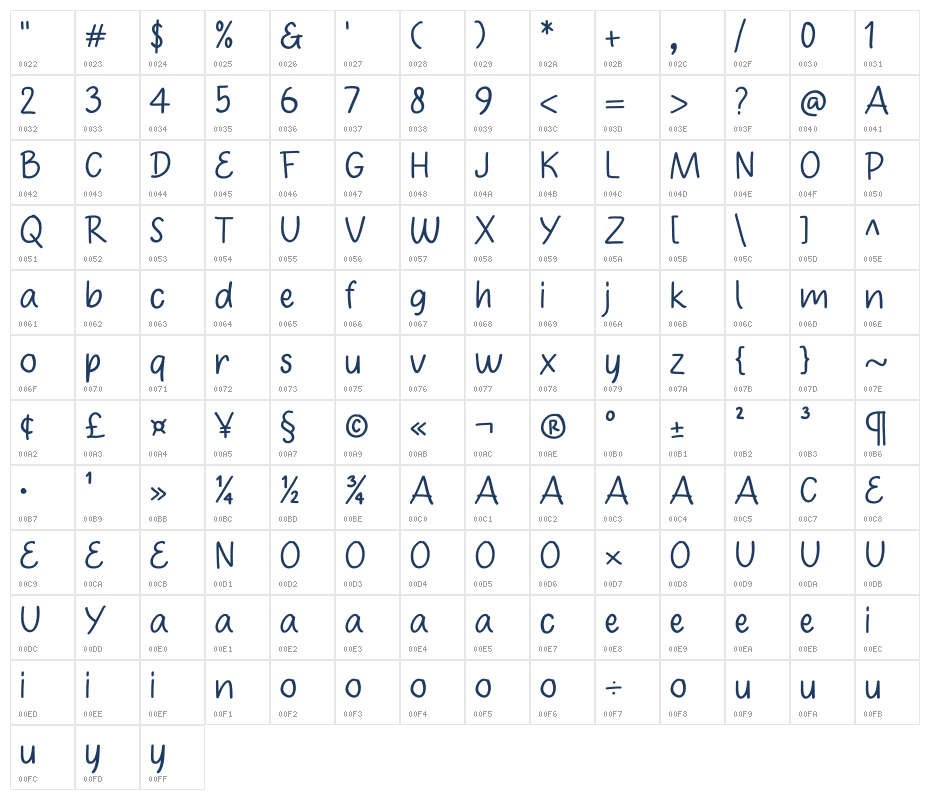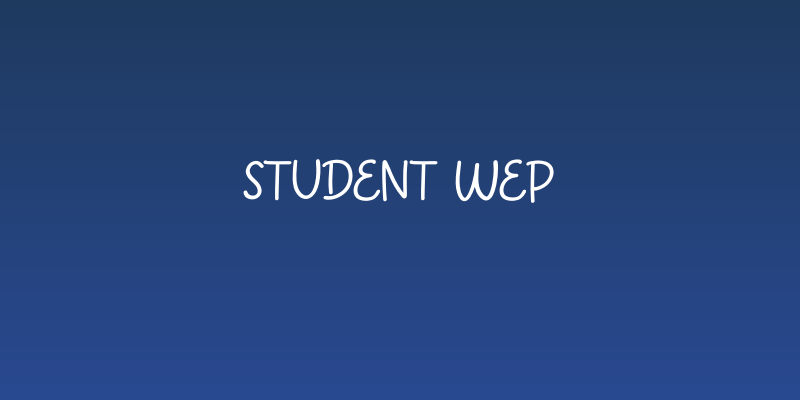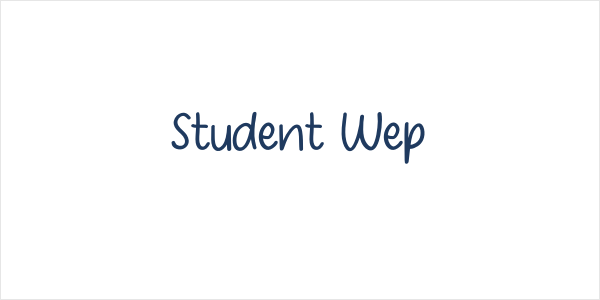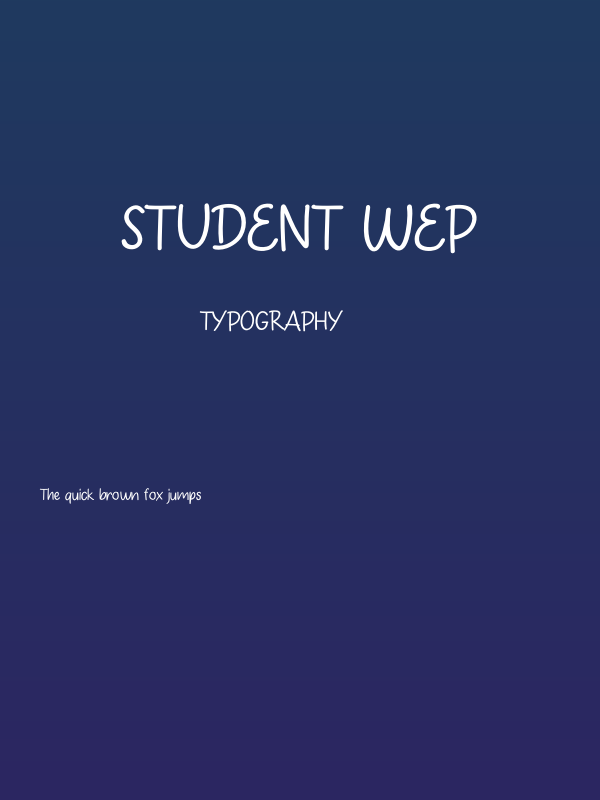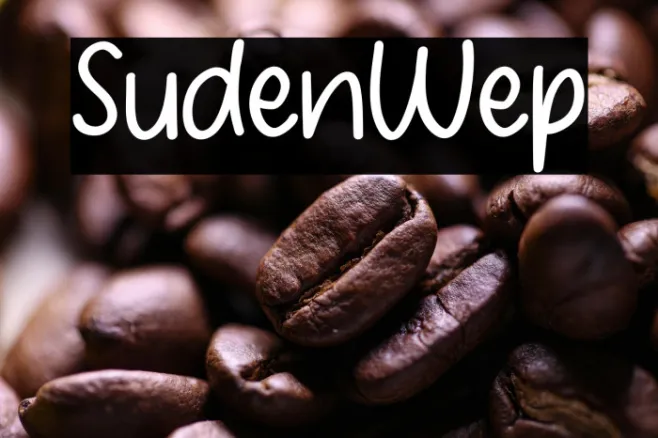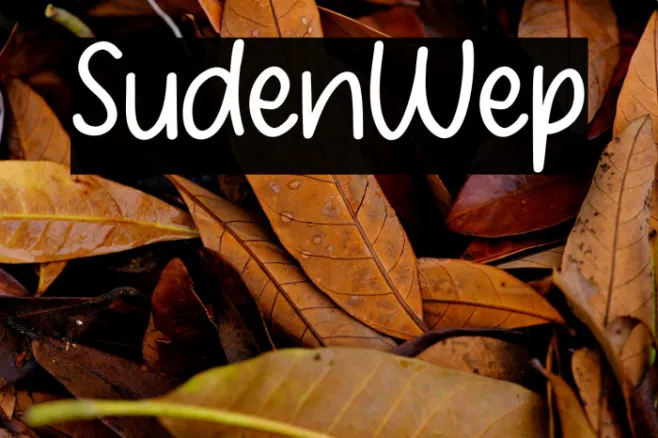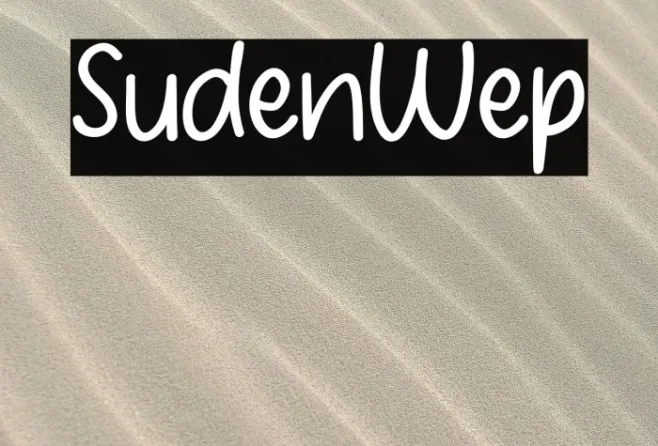
Student Wep Font
Student Wep Description
A casual, handwritten style font with a playful and informal appearance, featuring slightly irregular strokes and a friendly vibe.
| Overall Style | Casual, Friendly, Handwritten |
| Use Case | Headlines, Body text, Invitations, Personal projects |